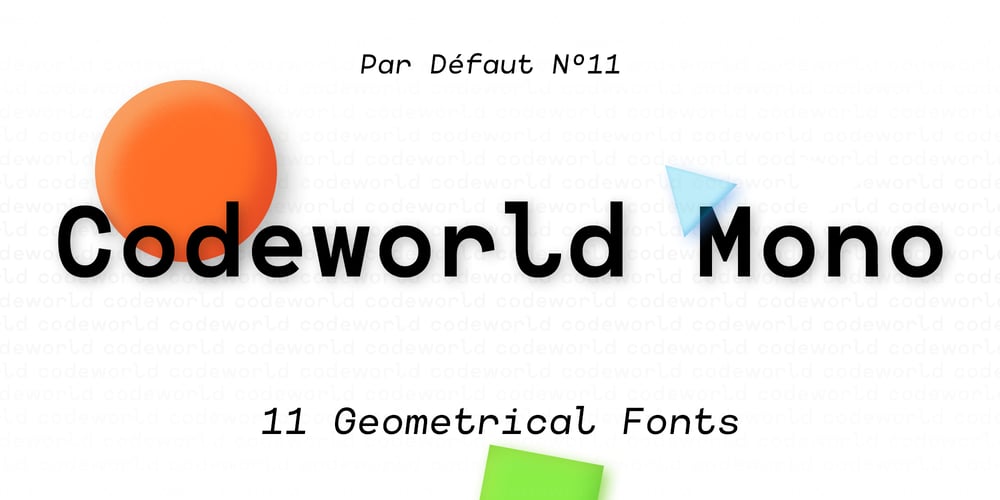
Codeworld Mono
Codeworld Mono font
Codeworld Mono Font Family was designed by Nathanaël Dorange and published by Par Défaut. Codeworld Mono contains 11 styles and family package options. Codeworld Mono is geometrical and monospaced sans serif font family (include 5 weight, italic and variable)It contains more than 800 characters including the Latin, Cyrillic and Greek alphabetThere are also 11 OpenType features (Superior; Inferior; Numerator; Denominator; Fraction; Small Capital; Small Capitals from Capitals; Contextual Alternate; Case Sensitive; Access All Alternates; Stylistic Set; Standard Ligature; Discretionary Ligature).